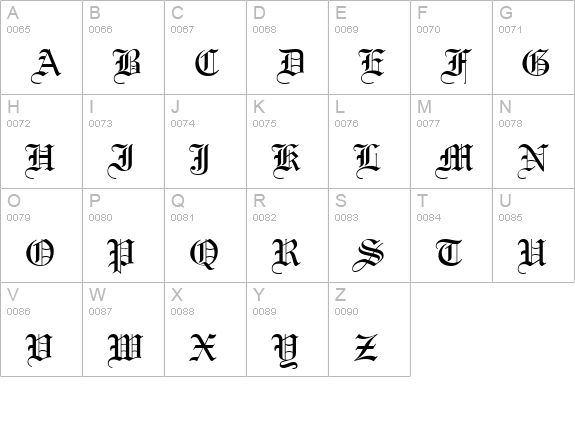
England Normal is the standard, neutral variant in the England typeface family \xE2\x80\x94 well suited to general body text, paragraphs, and standard typographic work.
England Normal font is a classic and versatile typeface that exudes elegance and sophistication. Its clean lines and timeless appeal make it suitable for a wide range of design projects, from branding to editorial work. The font features a well-balanced design with just the right amount of character, making it both readable and visually appealing. What sets England Normal font apart is that it is available for free download at FontsMarket.com. This means that you can easily access and use this high-quality font without any cost, making it a valuable addition to your font library. Whether you're a designer, a writer, or a creative professional, England Normal font offers a reliable and stylish option for your projects. Download it today and elevate your designs with this exceptional typeface.